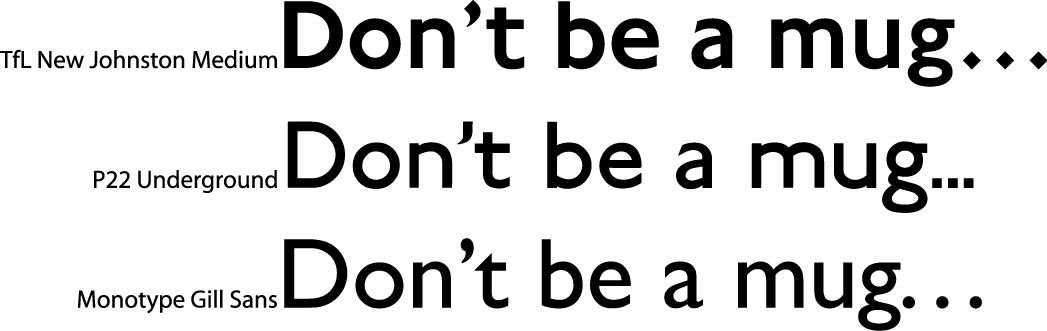
Transport London Font
You mean the one use in the london underground? As far as I know that’s ‘gill sans’
The London Underground one is called Johnston. Similar to Gill Sans, but
not quite the same.http://www.p22.com/products/london.html
quote Jamie Wood:The London Underground one is called Johnston. Similar to Gill Sans, but
not quite the same.http://www.p22.com/products/london.html
Jamie.And I always thought it was Gill Sans…………. Thanks for correcting me! You learn something new everyday…….
You’ll probably get pretty close using Gill Sans if you need to work out sizes in advance.
Angelique, Eric Gill was a pupil of Edward Johnston and developed and refined the the Underground font into his own work. That P22 cut is quite different to the updated version that Transport for London use these days.
EDIT: looking for that TfL link reminds me, if it’s only an odd logo you’re after Archie, you might be able to drag it out of one of the PDFs in the Design Standards here
The text I need is "Don’t be a mug, read…"
and also "Above The Line"
I thought I’d post it here too, just in case any really sad anorak types might want to compare it to Gill and P22’s recreation.